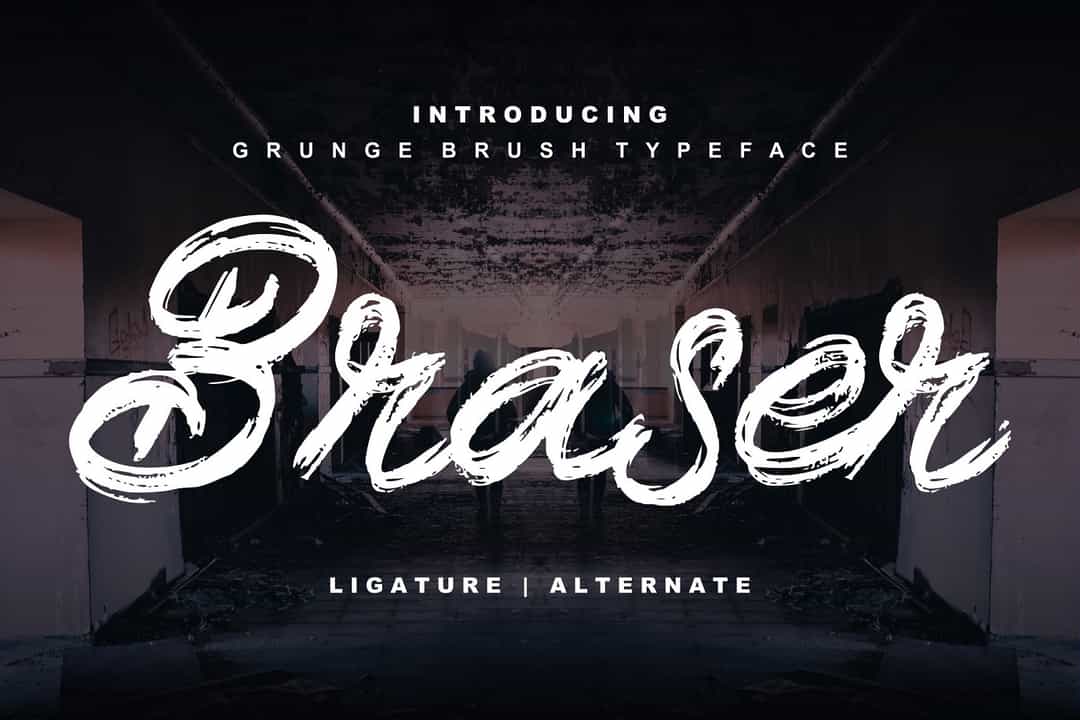
Braser is our new font designed with the uses of brushes and papers. Ideal for the current projects like clothing, signature, watermark, and photography as well as poster branding, red towns have underline swashes that you can modify to get any style or design that you want!